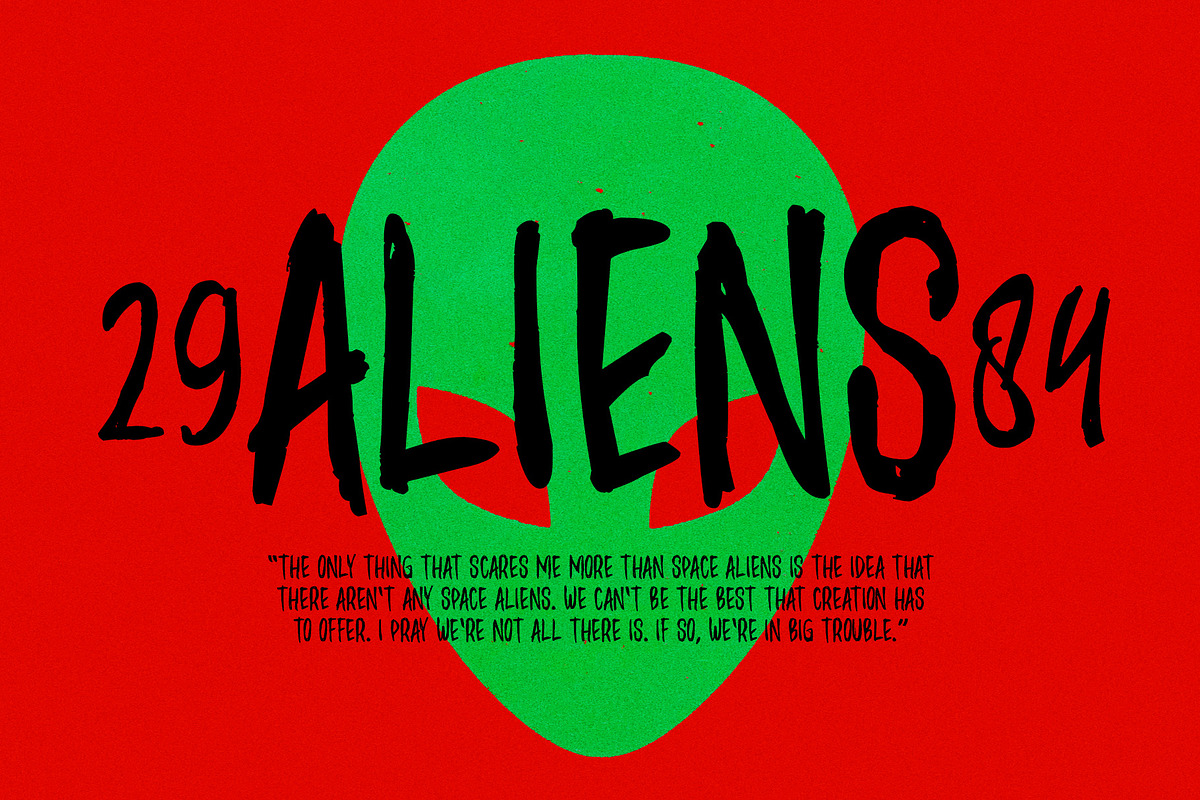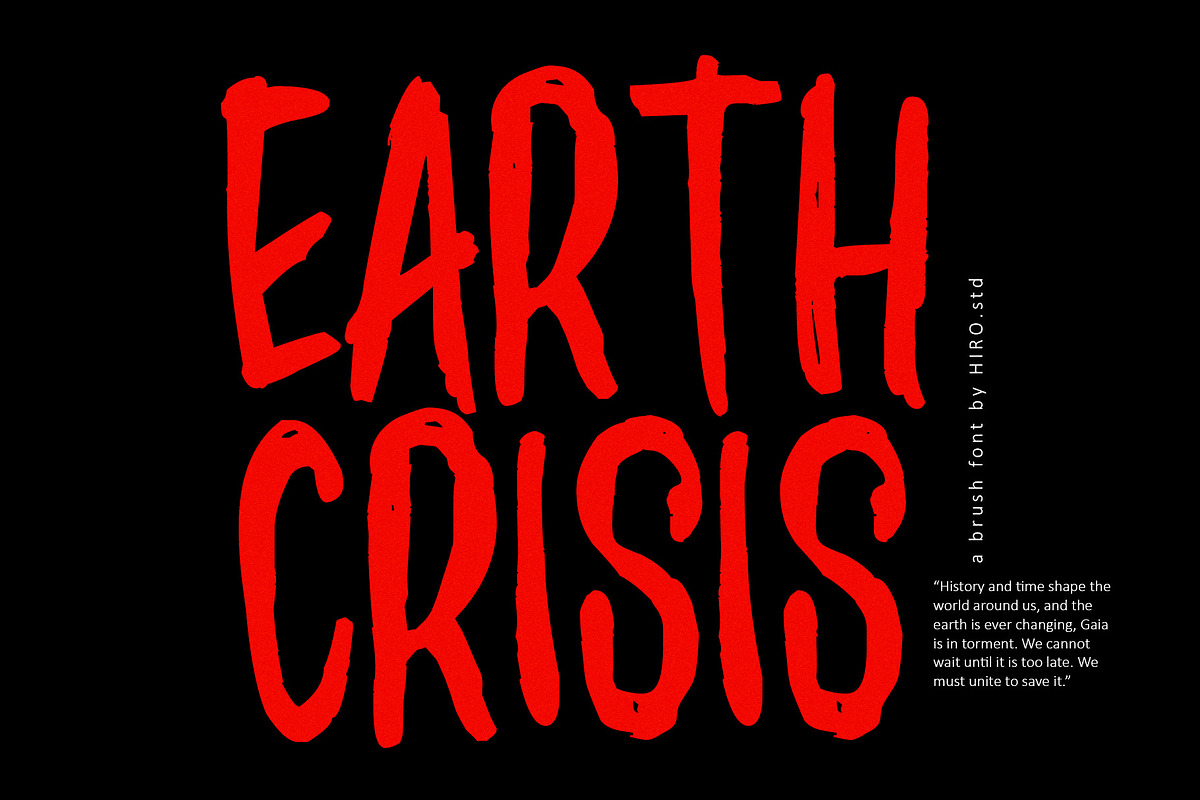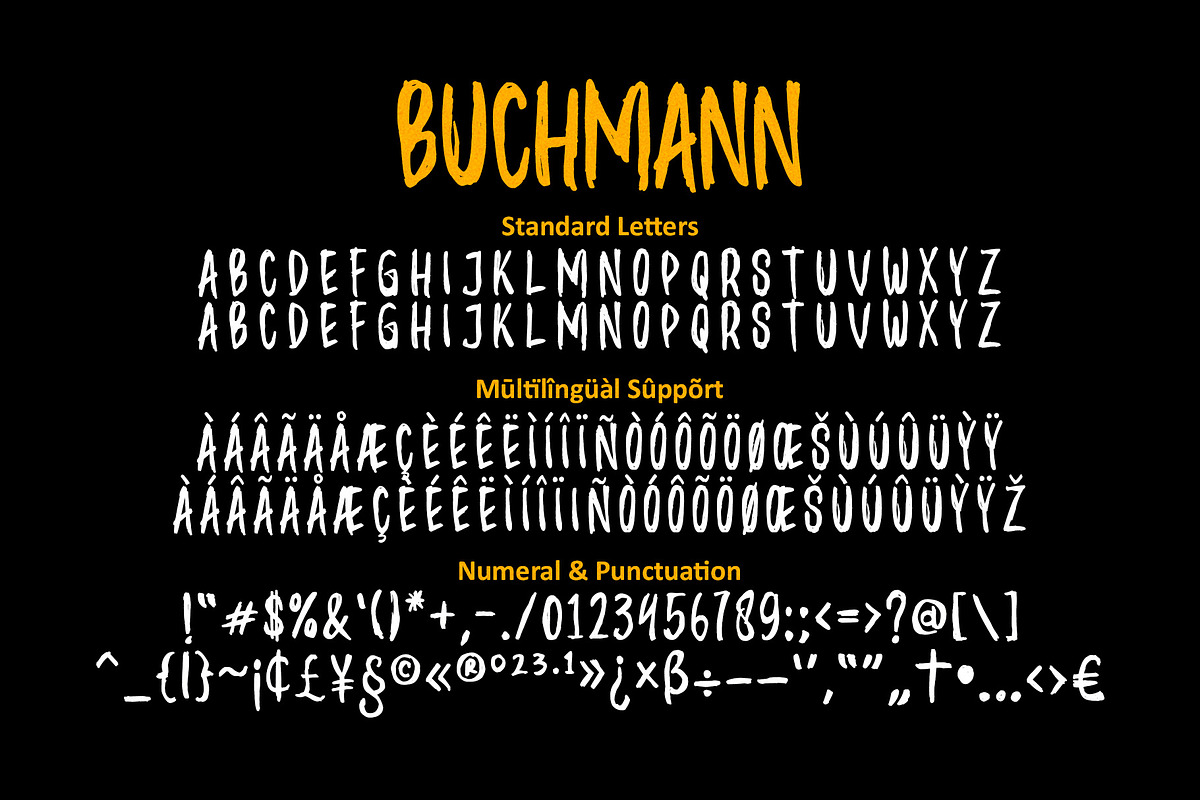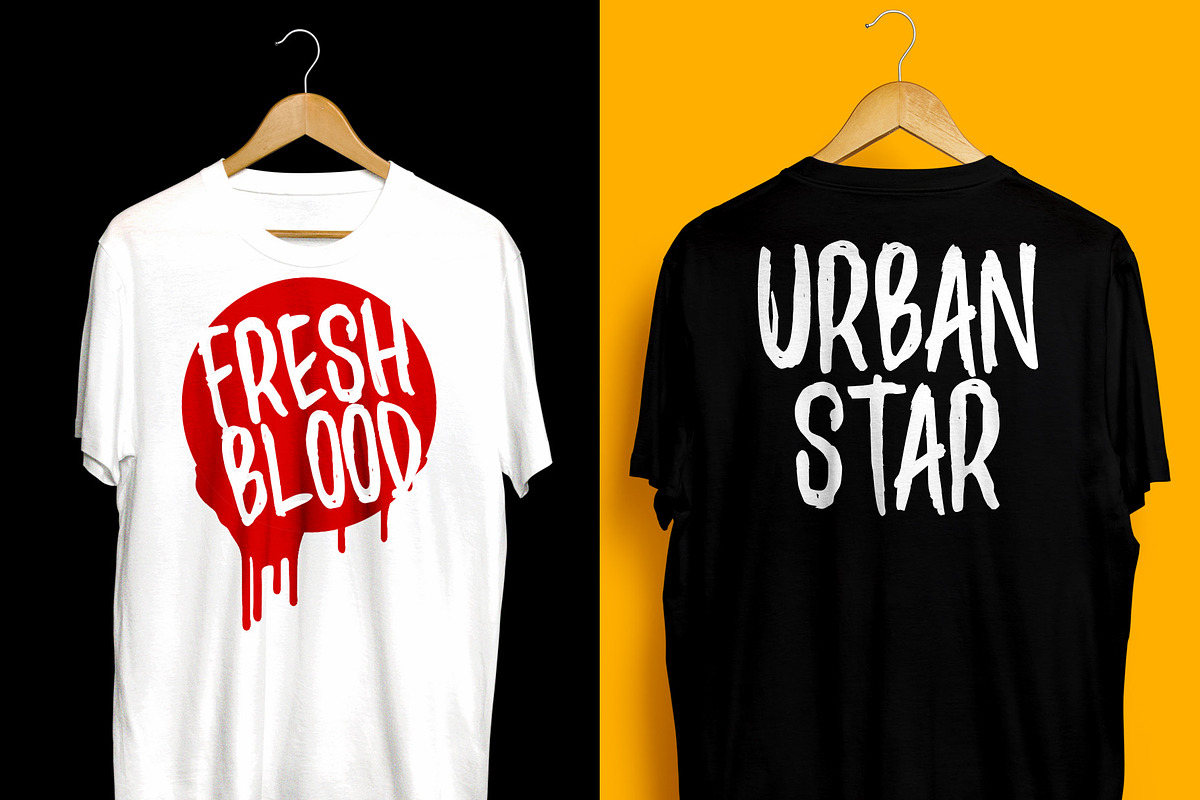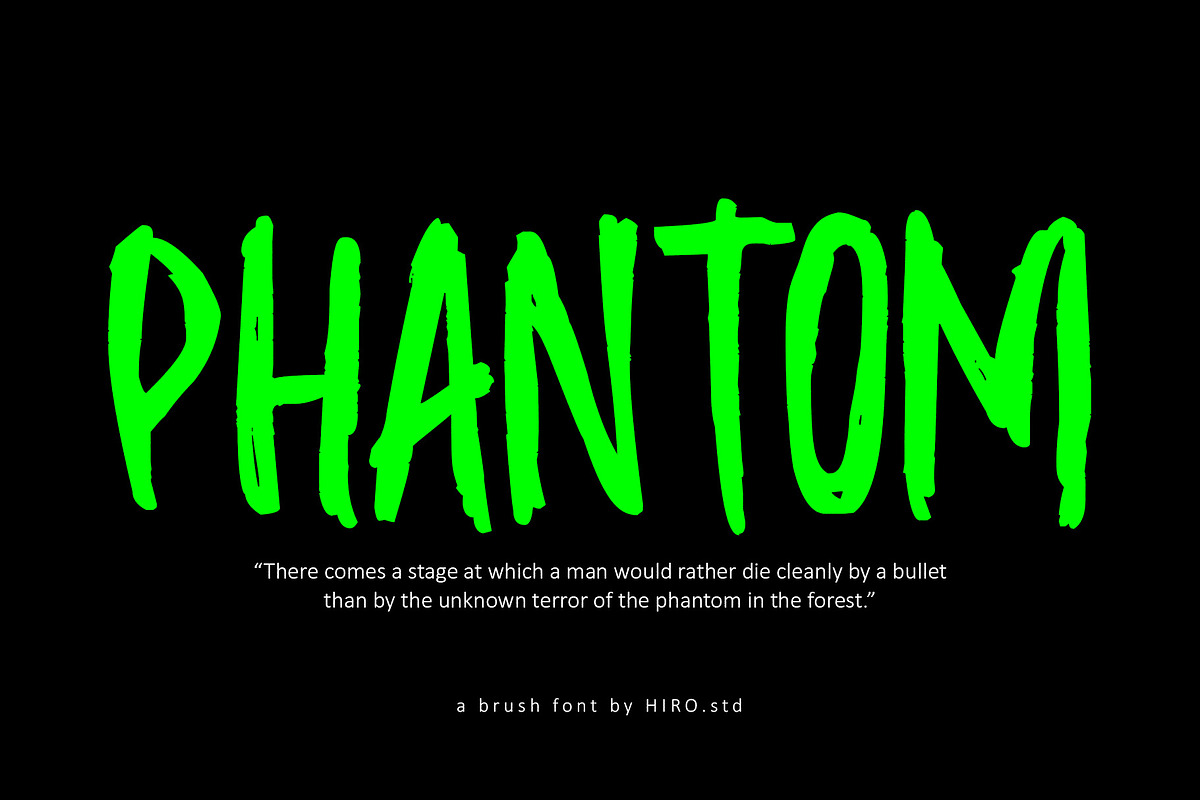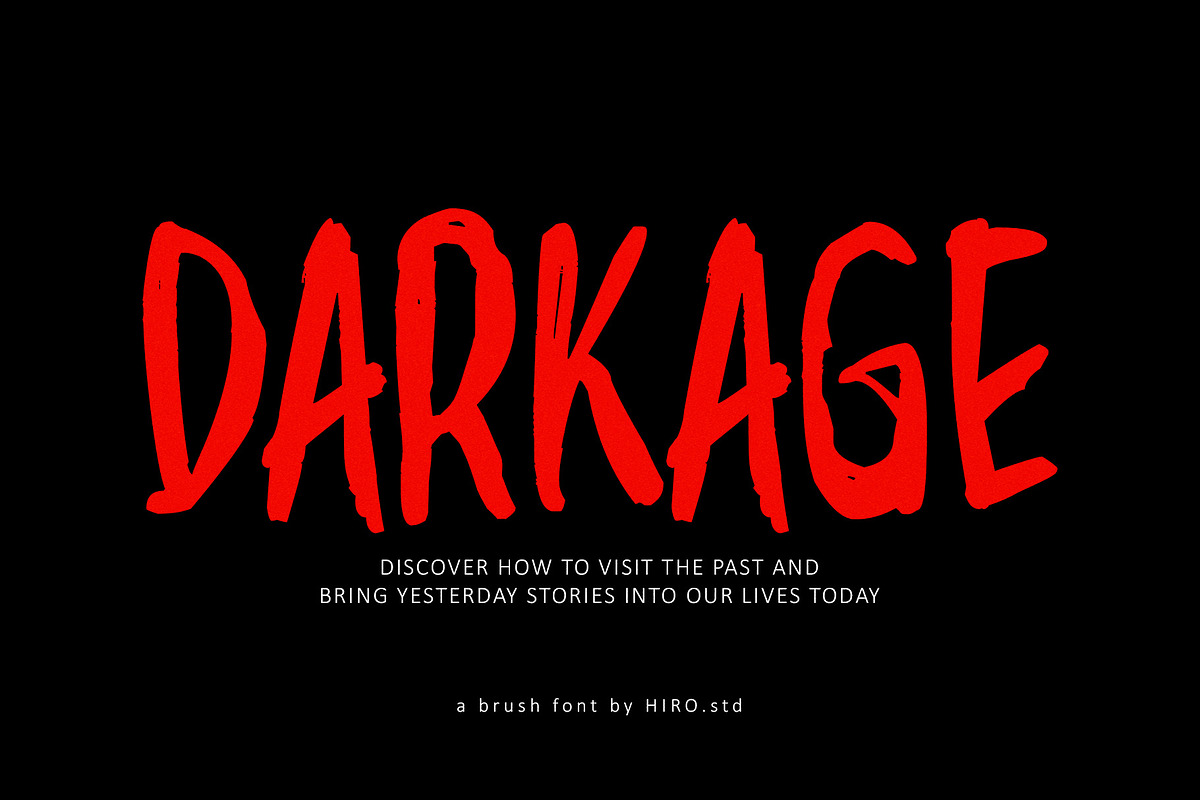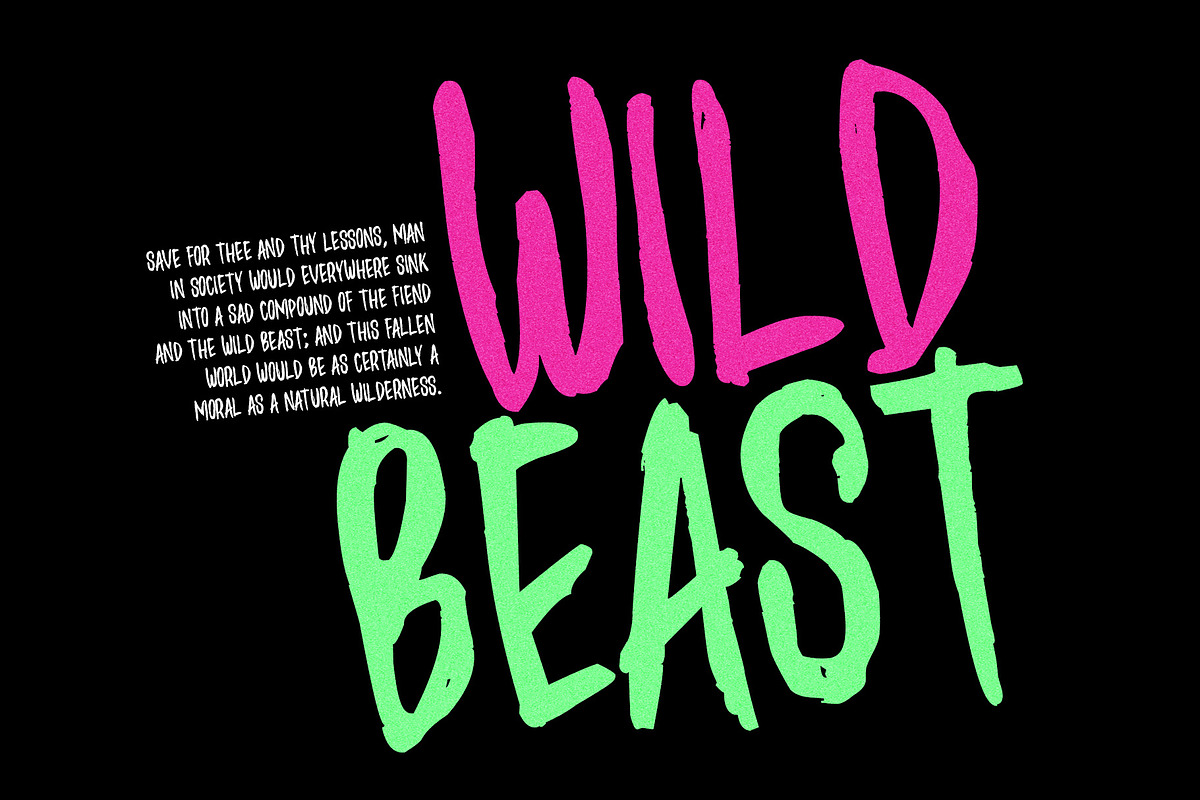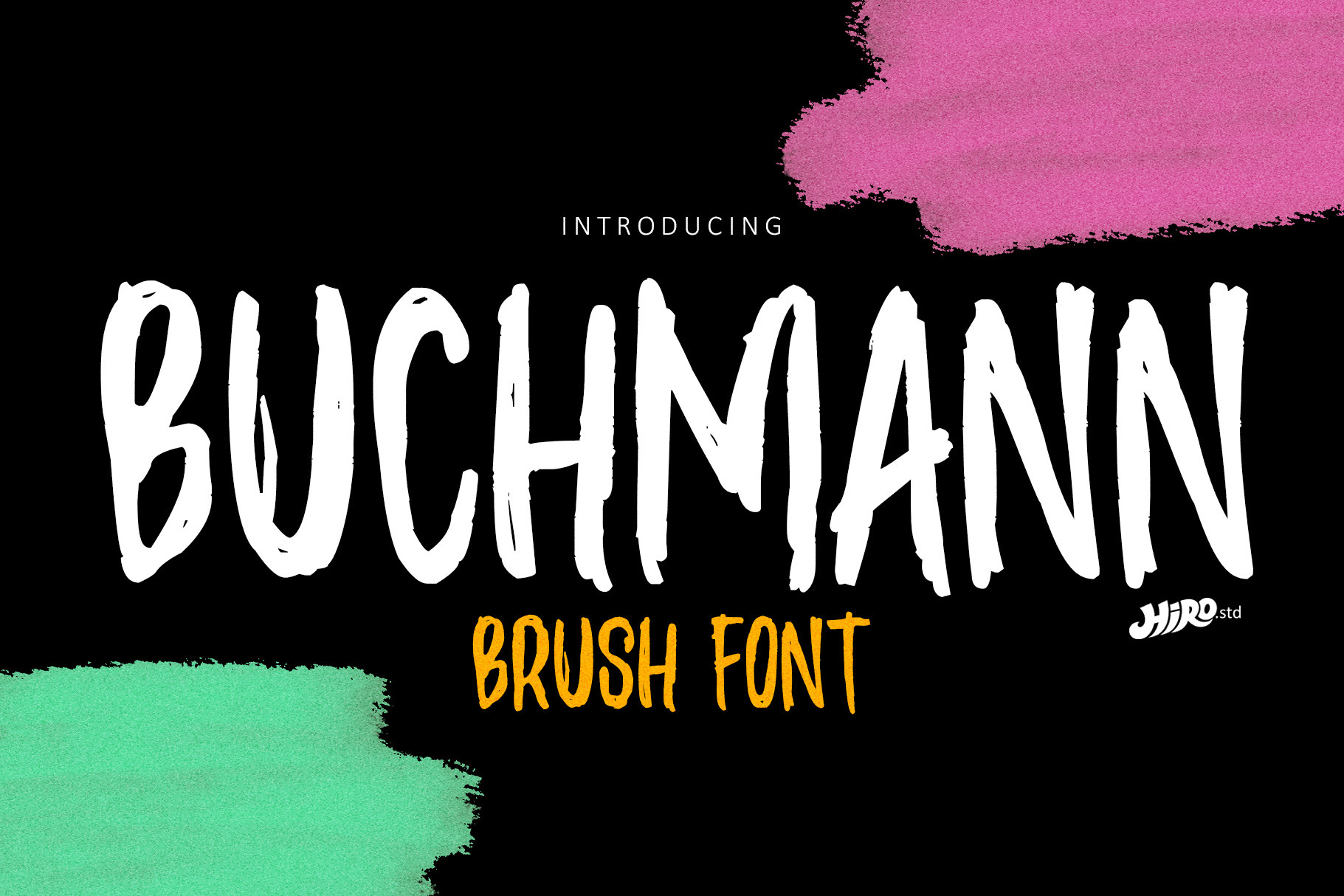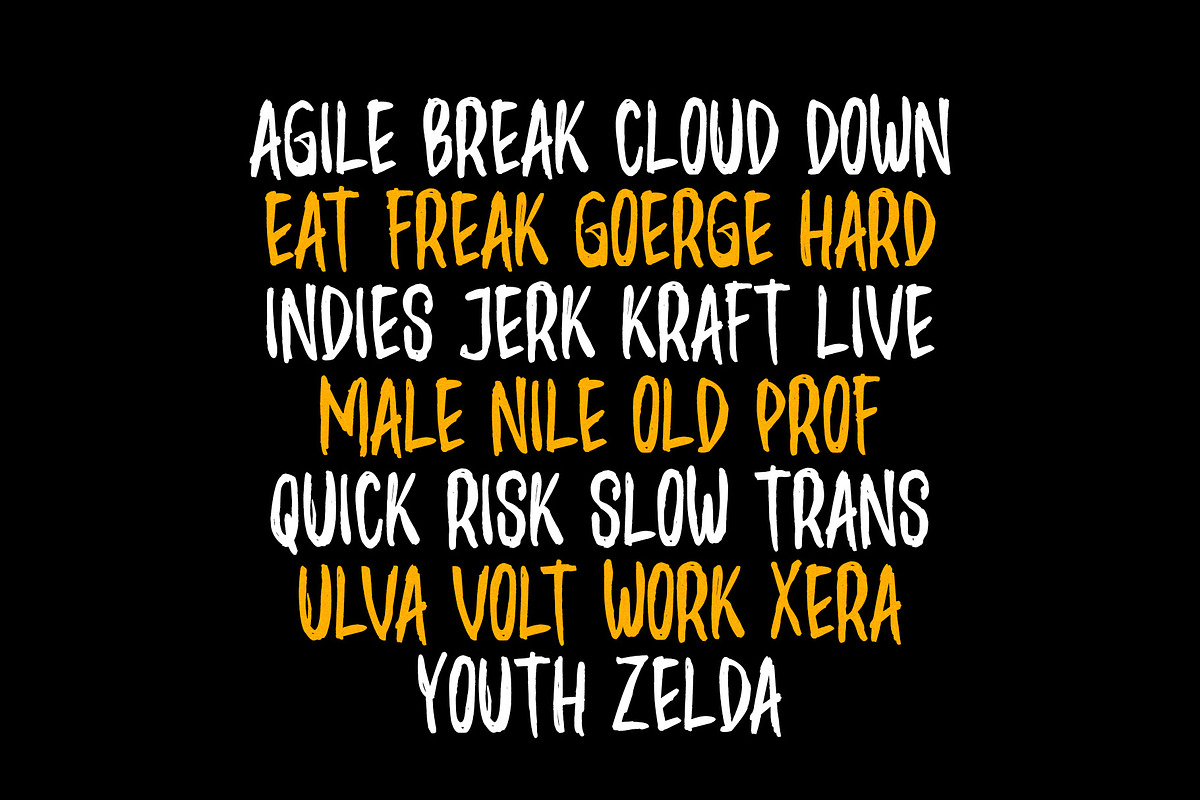
Buchmann - Brush Font
Buchmann is Display Font
This font describes about about fear, bold, taft, manly, hard, power, stiff, mighty, brave, gallant, rigid.
- Uppercase letters
USE Buchmann works great in any branding, magazines, poster, social media posts, clothing, advertisements, product packaging, product designs, label, quotes and any projects.